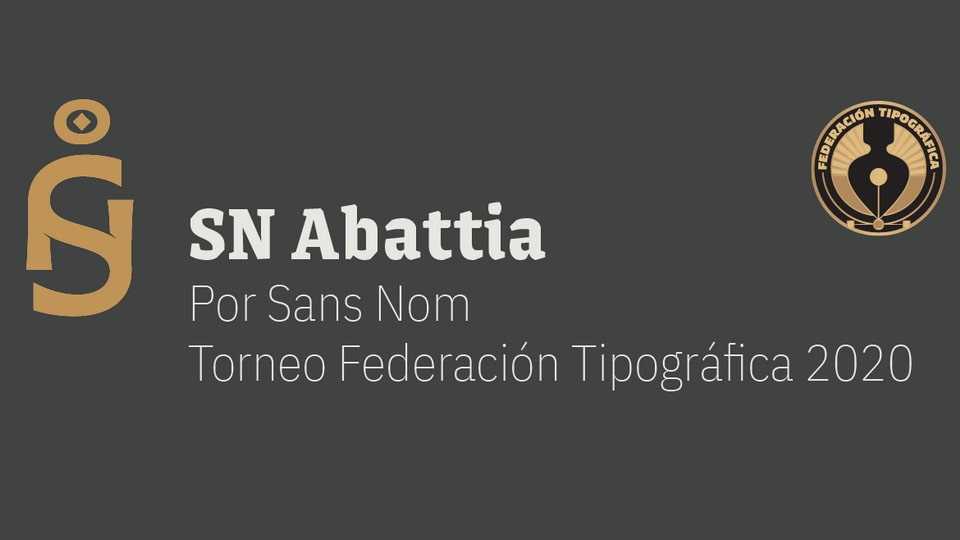
Download SN Abbatia font, a typeface designed specially for heading on screens with the need of lots of personality/character. SN Abbatia optimizes horizontal space by supporting a higher number of glyphs per line.
Designer: Torneo Tipográfico